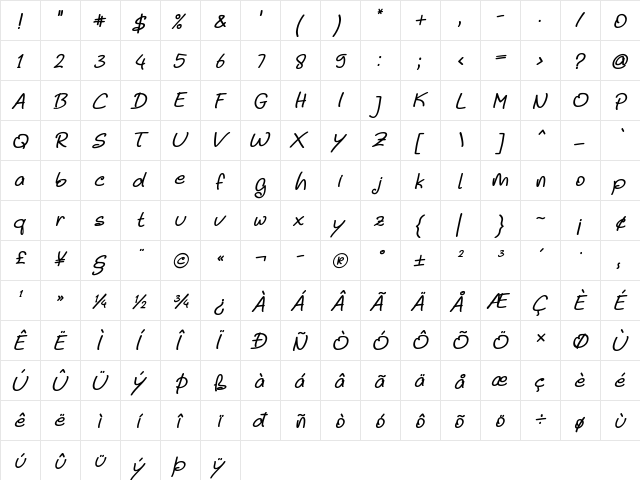
Noela Sherly Italic
| Foundry | 7NTypes |
| Designer | Adyfo; Situjuh Nazara |
Design Context for Noela Sherly Typeface
Noela Sherly takes a measured approach to typography — its balanced proportions and neutral character make it a reliable workhorse for both digital and print work. The slanted form adds forward momentum and visual energy.
Pro Tip: Try Noela Sherly for annotation and caption copy alongside an upright companion — the contrast in angle creates a dynamic but ordered typographic system.